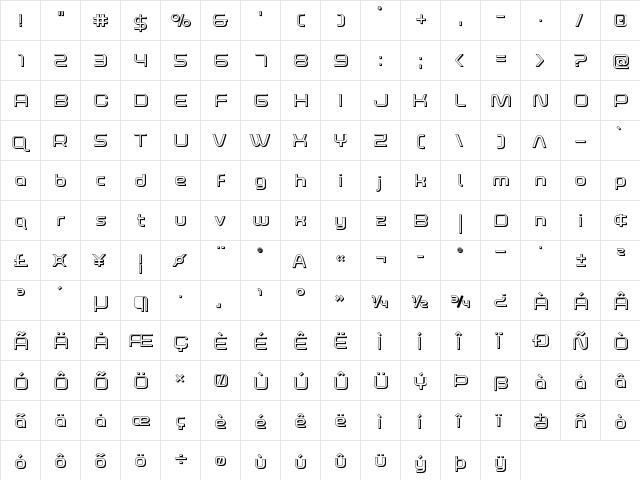
Fox on the Run 3D Regular
Design Context for Fox on the Run 3D Typeface
Fox on the Run 3D is a composed and adaptable typeface that performs quietly and consistently across a wide range of design contexts.